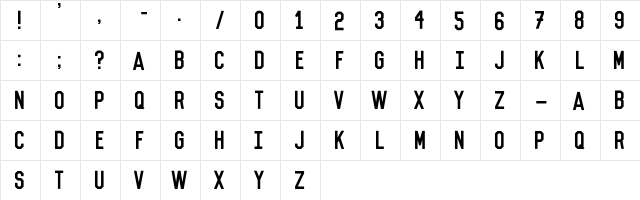
Vincent Regular Font Preview
Vincent Regular
Design Context for Vincent Typeface
Vincent is a composed and adaptable typeface that performs quietly and consistently across a wide range of design contexts.